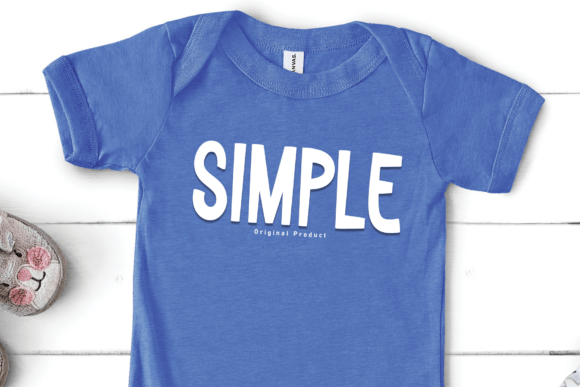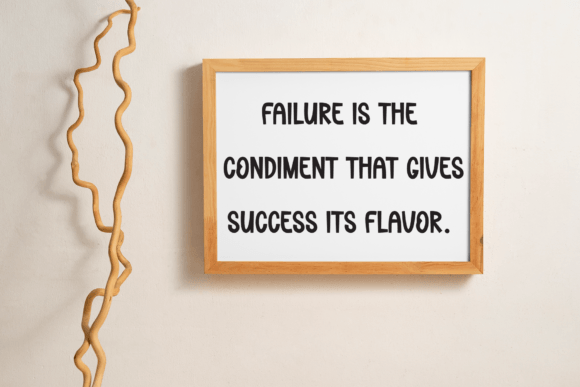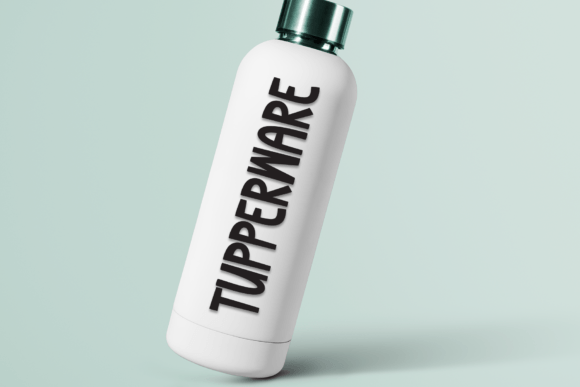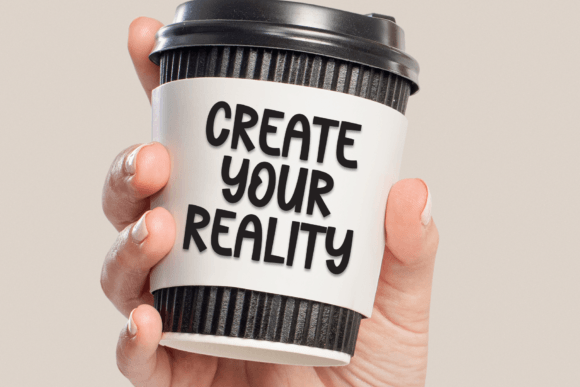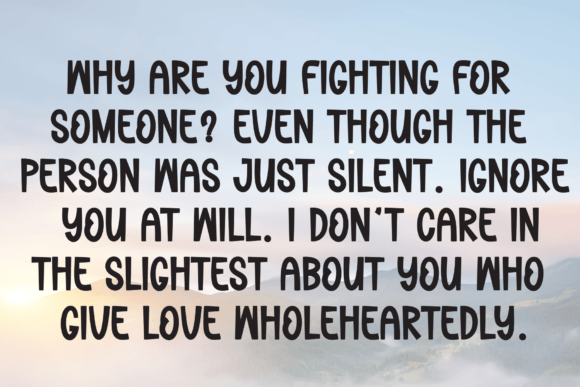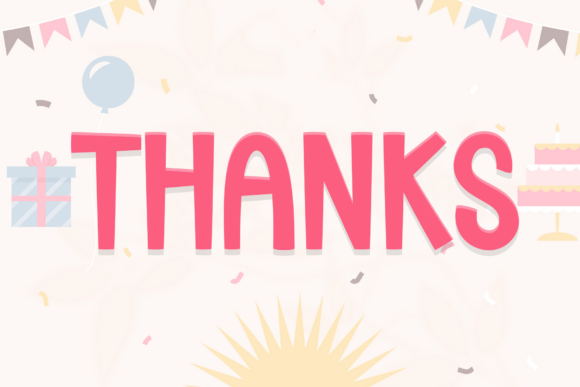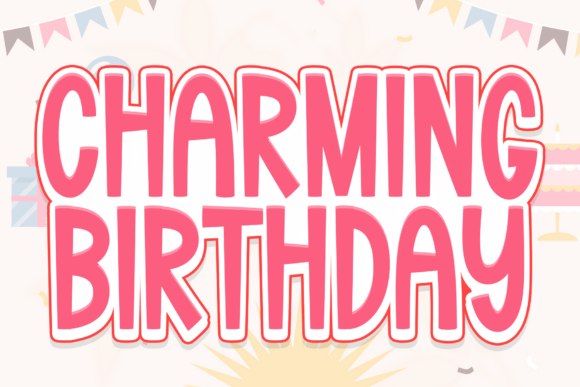
Make Your Designs Shine with the Perfect Birthday Font
Have you ever stared at a blank canvas, trying to find the perfect font to convey the joy and excitement of a birthday celebration? I’m sure you’ve been there too. It’s that moment when everything seems to be missing, and you need a little inspiration to bring your design to life.
Enter the Charming Birthday Font, a sweet and friendly display font that’s sure to capture the essence of any birthday design. This natural and unique font is the perfect addition to any project, from birthday invitations to party decorations. Its versatility and charm make it incredibly valuable for designers looking to create memorable and eye-catching designs.
With the Charming Birthday Font, the possibilities are endless. Its unique style and friendly vibe make it a must-have for designers who want to add a personal touch to their creations.
Charming Birthday Font Key Features
- Unique Characteristics: Whimsical, elegant, and playful design elements, ideal for birthday invitations, cards, and other celebratory materials.
Designer Review: Charming Birthday Font
Overall, I think the Charming Birthday Font is a lovely addition to any designer’s toolkit. It works well in ✨ creative projects where a touch of whimsy is needed. The font’s playful, handwritten style is perfect for birthday invitations, party decorations, or any other celebration-themed design.
- ✨ The font’s unique, hand-drawn feel adds a personal touch to designs.
- ✨ It’s great for targeting a younger audience, as the playful style will resonate with kids and teenagers.
- ✨ The font is easy to read, even at smaller font sizes, making it suitable for various design applications.
However, there are a few limitations to consider: ⚠️ the font may not be as effective for more formal or professional designs, as its playful style can come across as immature. Additionally, the font’s lack of versatility may limit its use in designs where a more formal or serious tone is needed.
Overall, I think the Charming Birthday Font is a solid choice for designers looking to add a touch of whimsy to their projects. While it may not be suitable for every design application, it’s a great option for birthday-themed projects or any other creative endeavors where a playful, handwritten style is needed.
Charming Birthday Font is ideal for creating birthday invitations, party decorations, social media graphics, and custom birthday cards. Use the font to add a touch of whimsy and personality to your designs.